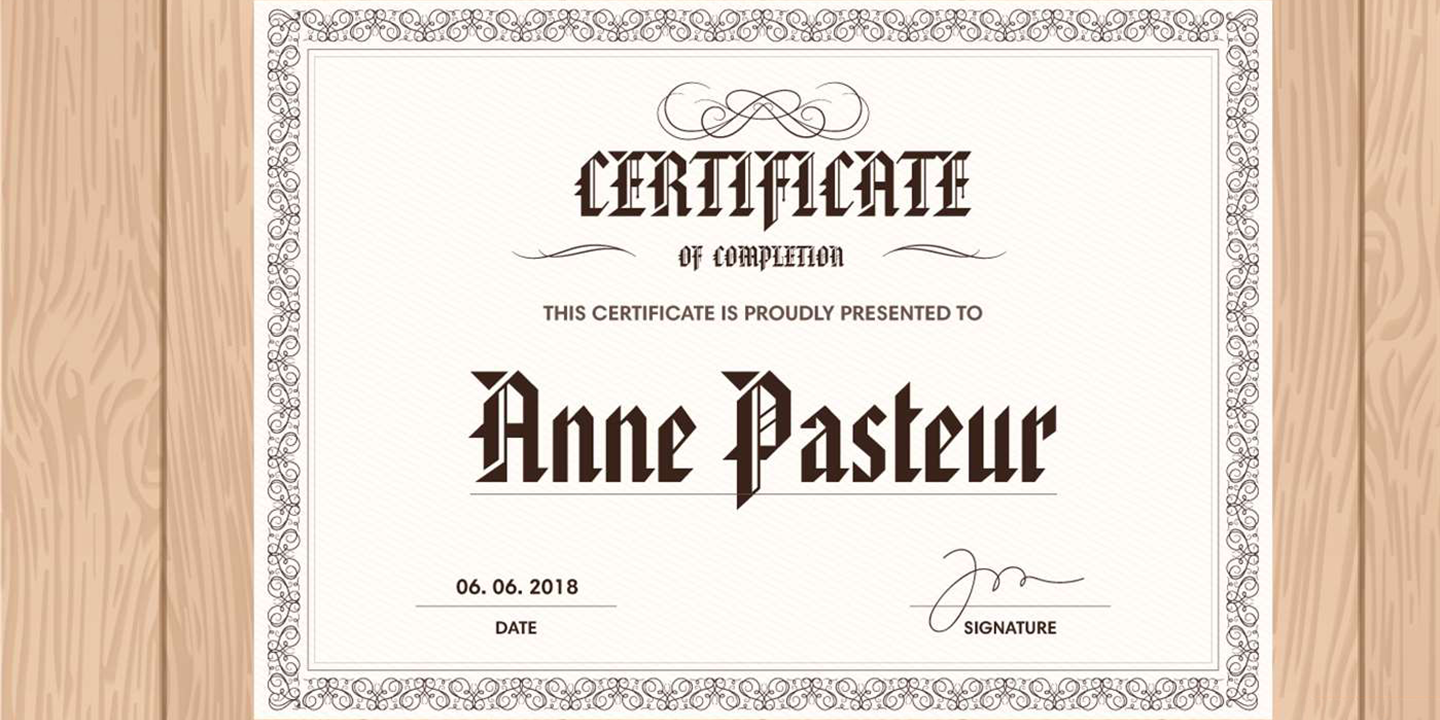
American Text Font Free Download is a bold and distinctive typeface that brings a vintage, all-American vibe to any design. Please note that you must purchase this font for commercial use. You can download it for free for testing purposes. This font is perfect for applications like retro posters, signage, merchandise, logos, and themed branding, where its strong, gothic-inspired style shines. Its rugged and classic design makes it exciting, evoking a sense of nostalgia and boldness that elevates creative projects. The American Text Font family includes Regular, Bold, and Condensed variations, offering flexibility for various design needs.
Transform your projects with American Text Font Free Download, a typeface that captures the essence of vintage Americana with its robust, textured letterforms. Ideal for creating eye-catching headlines, event flyers, or branding for diners and retro-themed businesses, this font delivers a powerful visual impact. Its heavy, blocky structure ensures readability while adding a timeless, patriotic charm, making it a favorite for designers aiming to evoke heritage and strength. Whether you’re designing a logo for a classic car show, crafting a poster for a music festival, or developing packaging for artisanal products, American Text Font brings authenticity and character. Its versatility spans print and digital media, ensuring a cohesive look across platforms. The font’s bold strokes and gothic flair reflect a rich typographic tradition, perfect for projects that demand a standout, retro aesthetic. With its range of styles, American Text Font empowers designers to create visually striking designs that resonate with audiences. Download it today to explore its bold charm and infuse your projects with a distinctive, nostalgic energy that captivates and inspires.